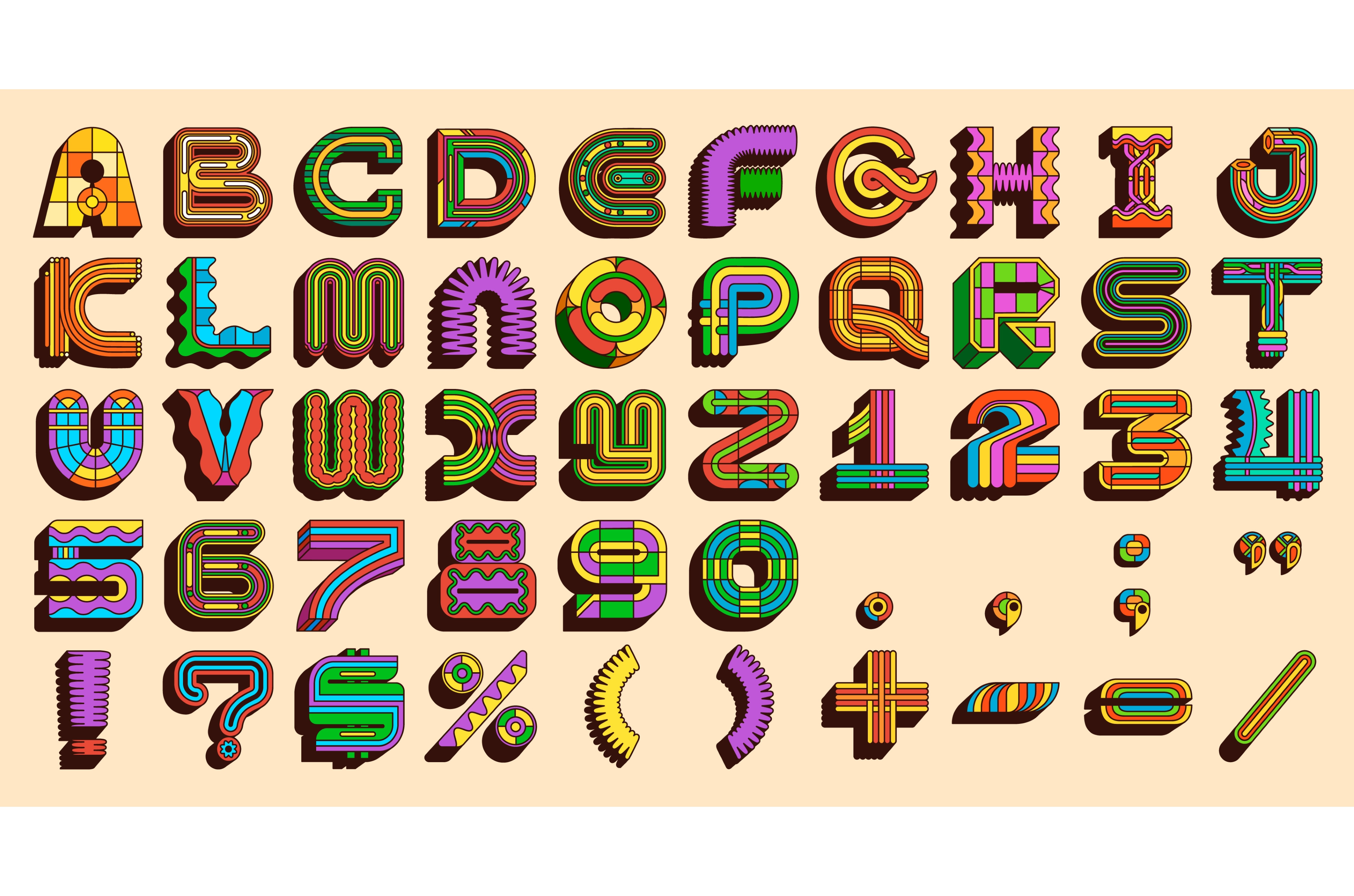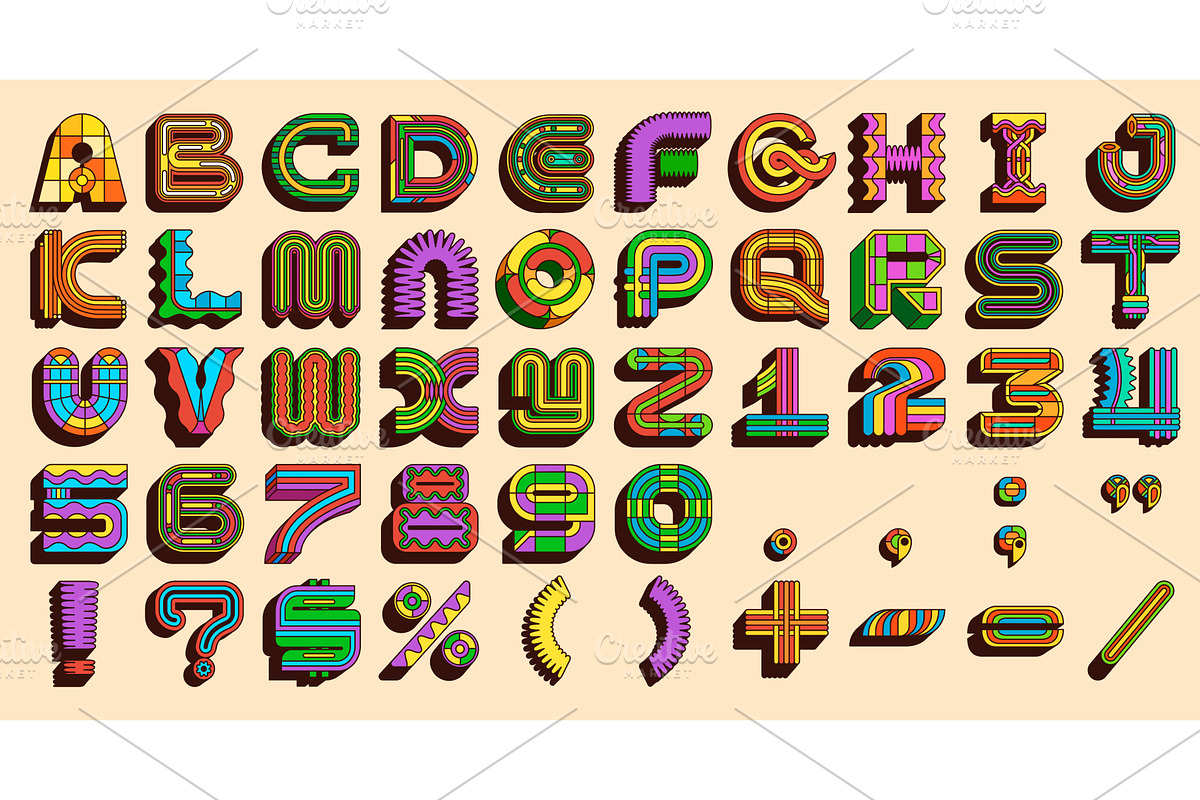
Y2k font, groovy typeface
Y2k font, groovy typeface letters. Vector color geometric english alphabet with letters, numbers and punctuation, bold outlines and funky retro elements in y2k aesthetic. Playful abc with latin symbol